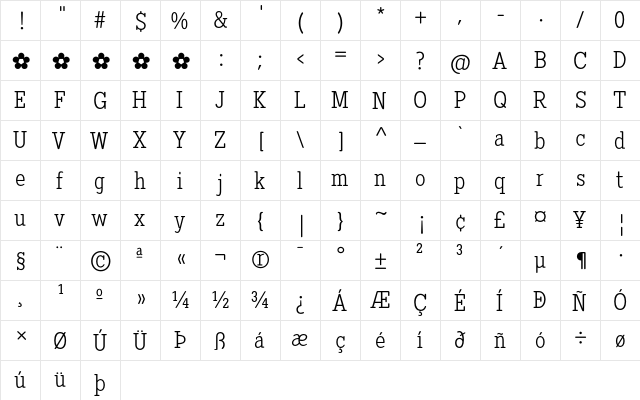
Diezma Rd Light Regular
| Foundry | deFharo |
| Designer | Fernando Haro |
Design Context for Diezma Rd Light Typeface
Diezma Rd Light takes a measured approach to typography — its balanced proportions and neutral character make it a reliable workhorse for both digital and print work. Its slender proportions lend an understated elegance to any composition.